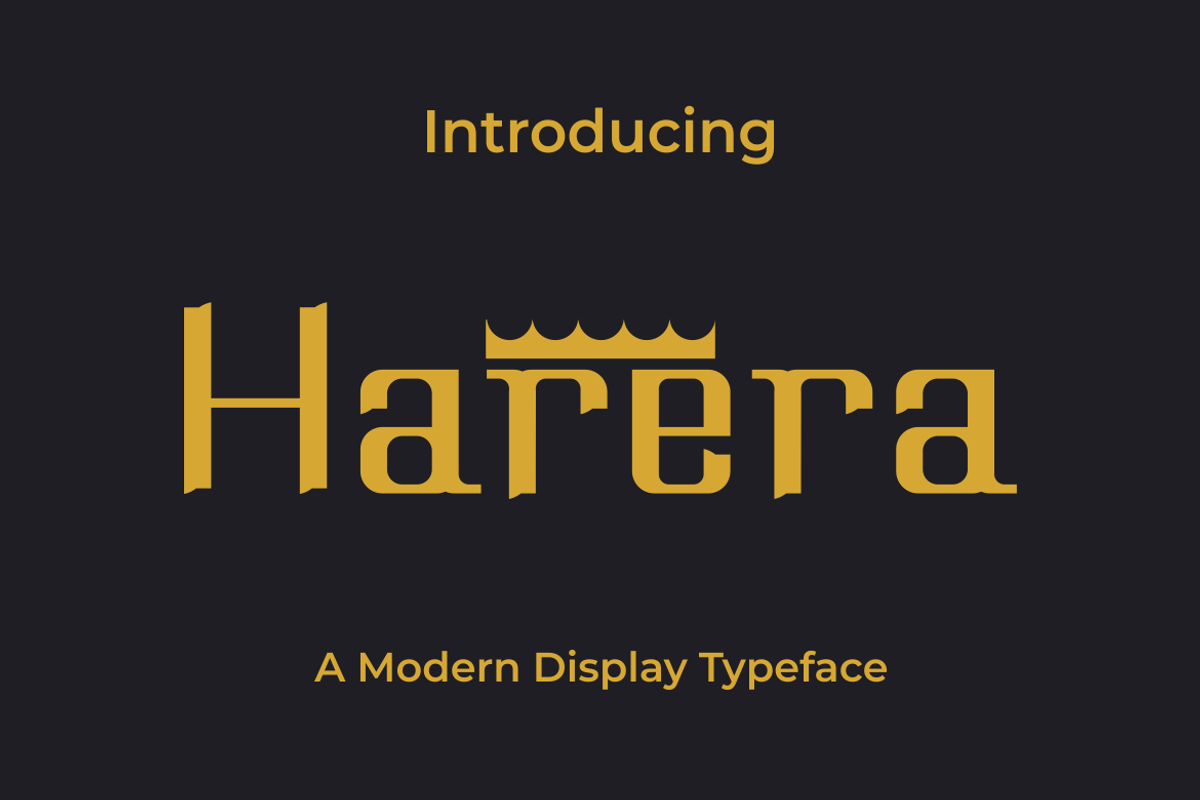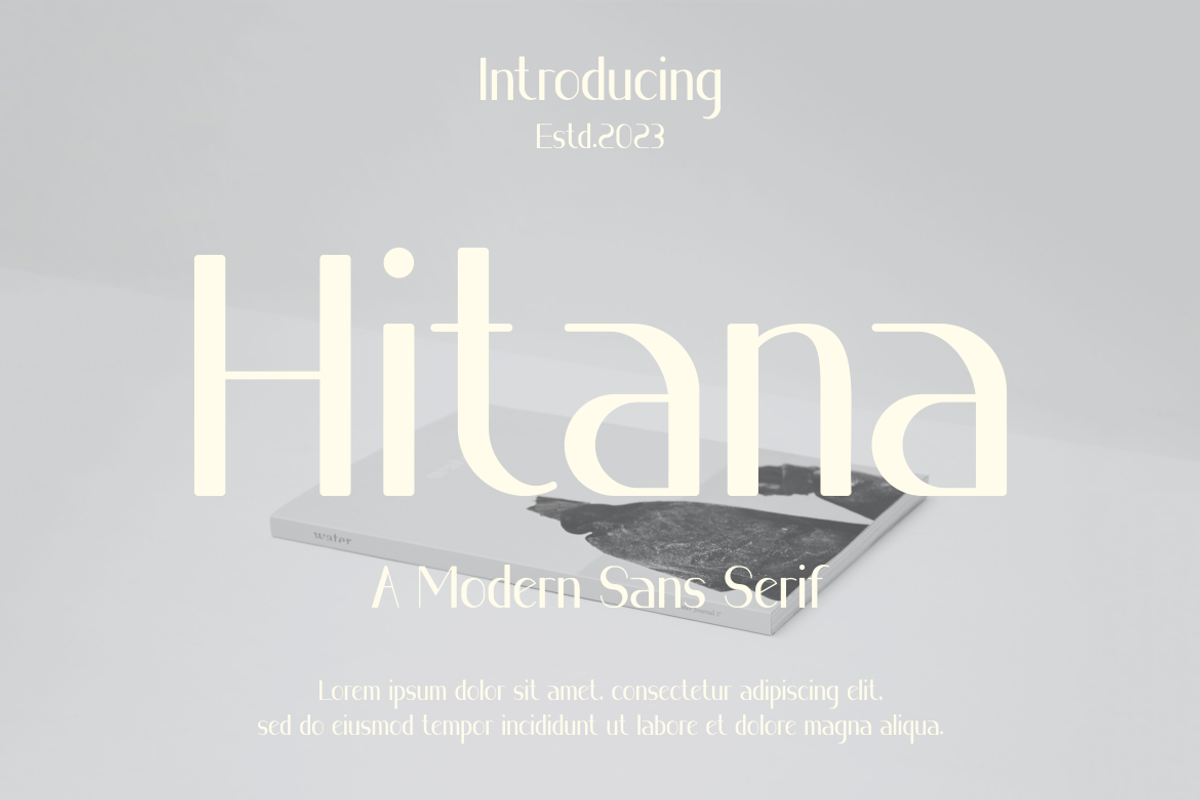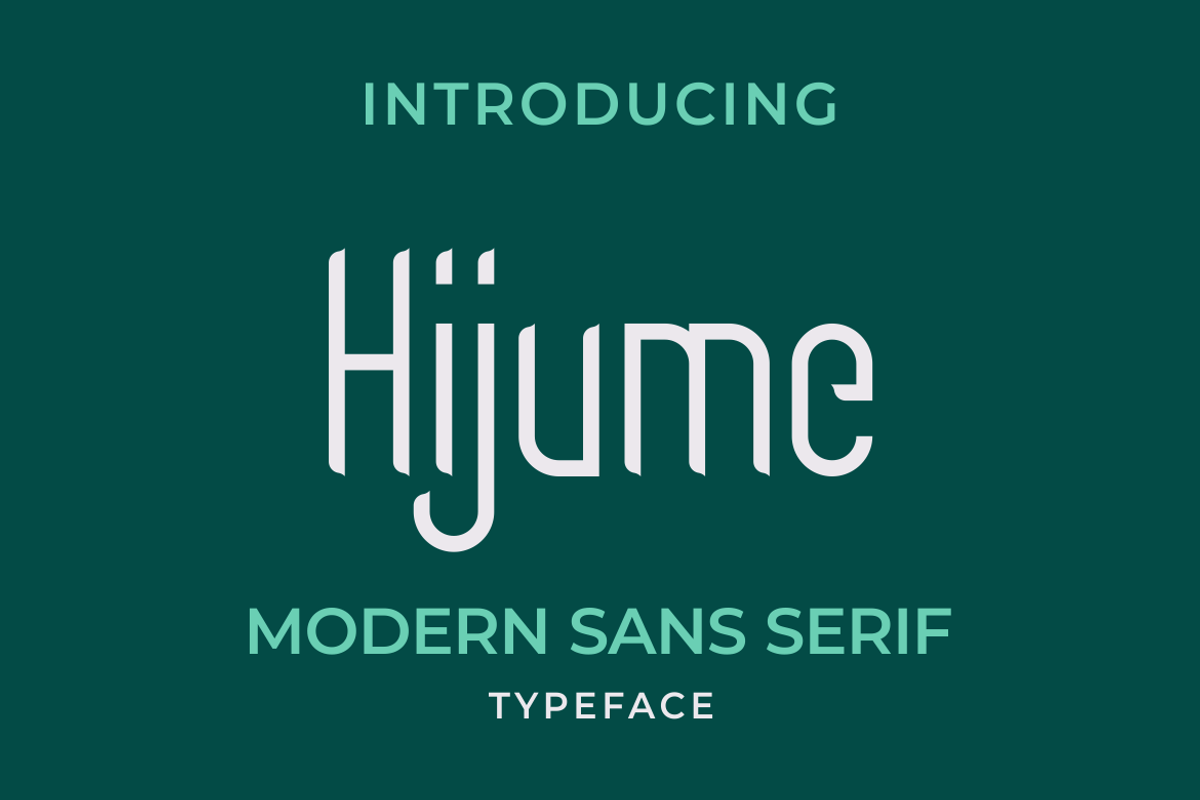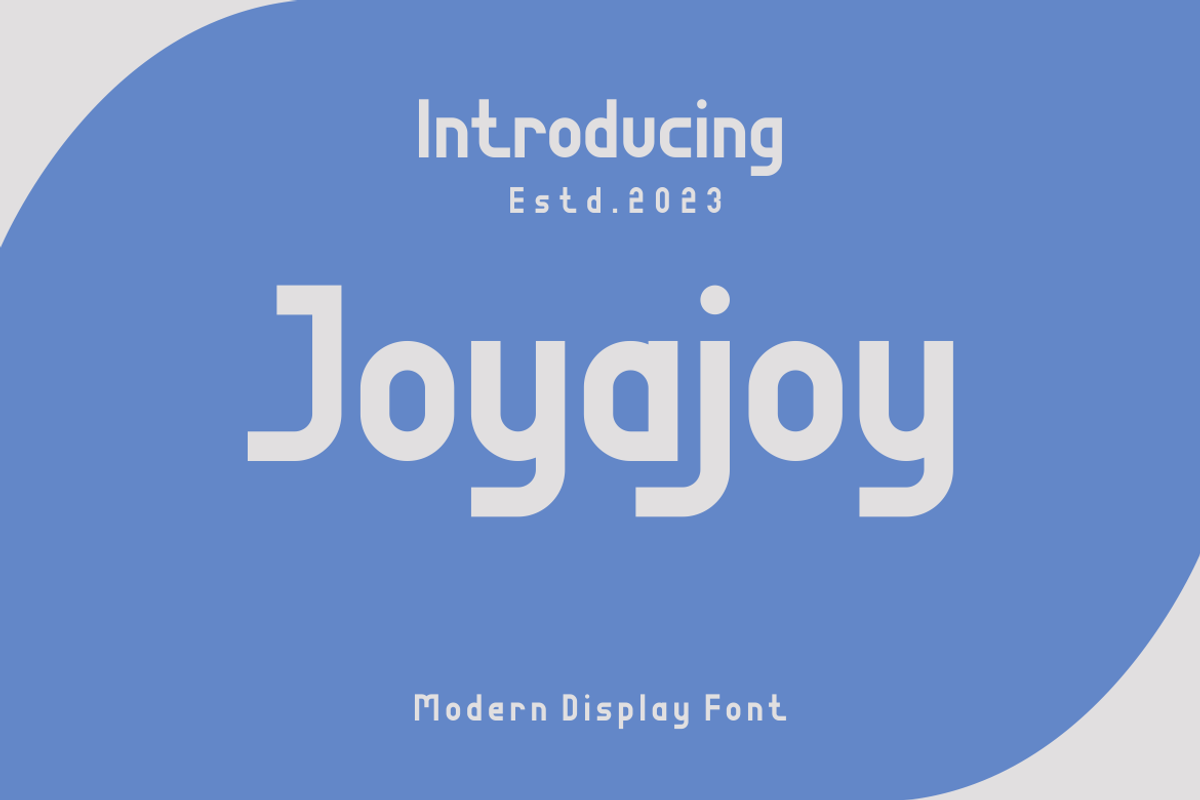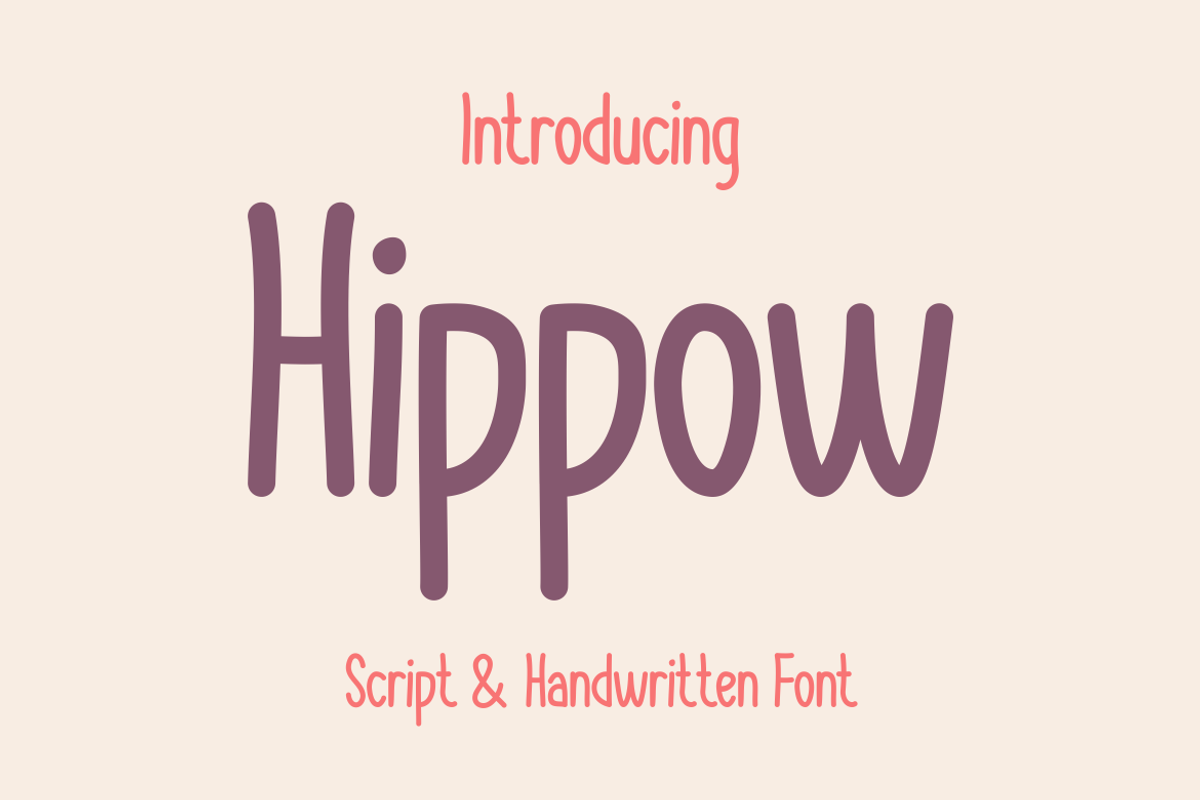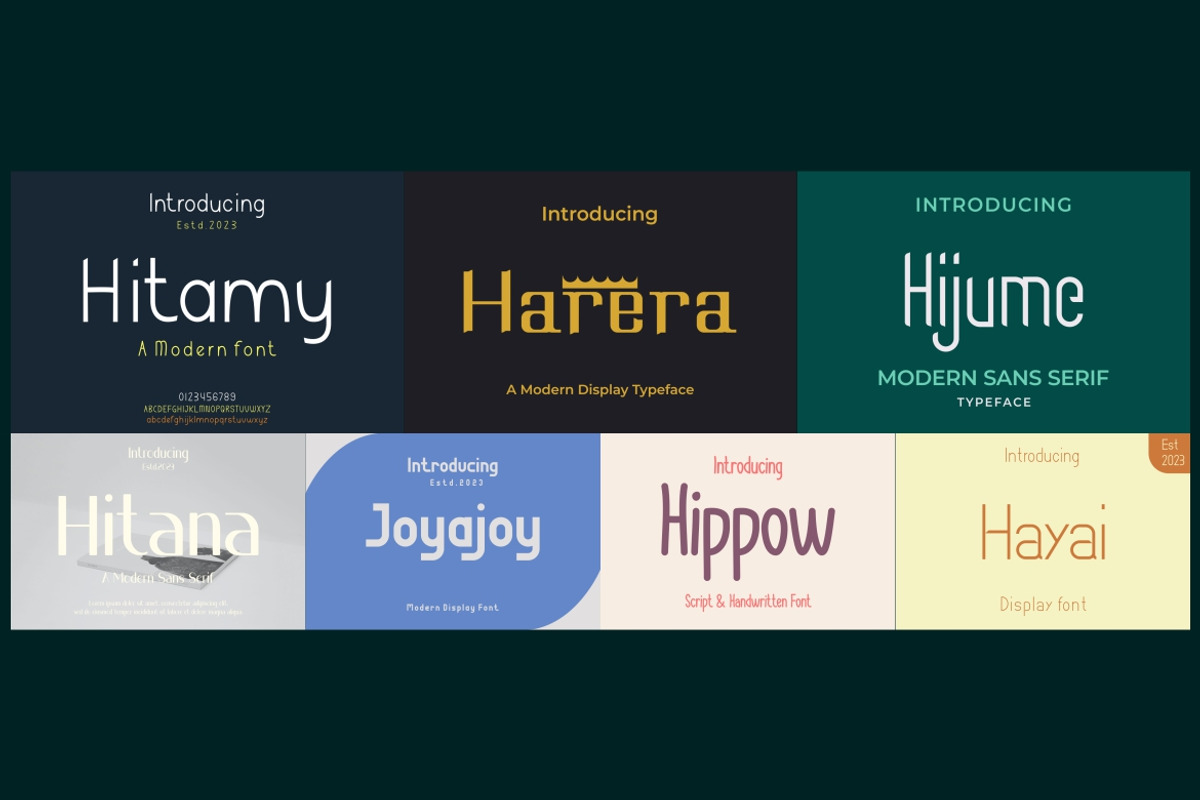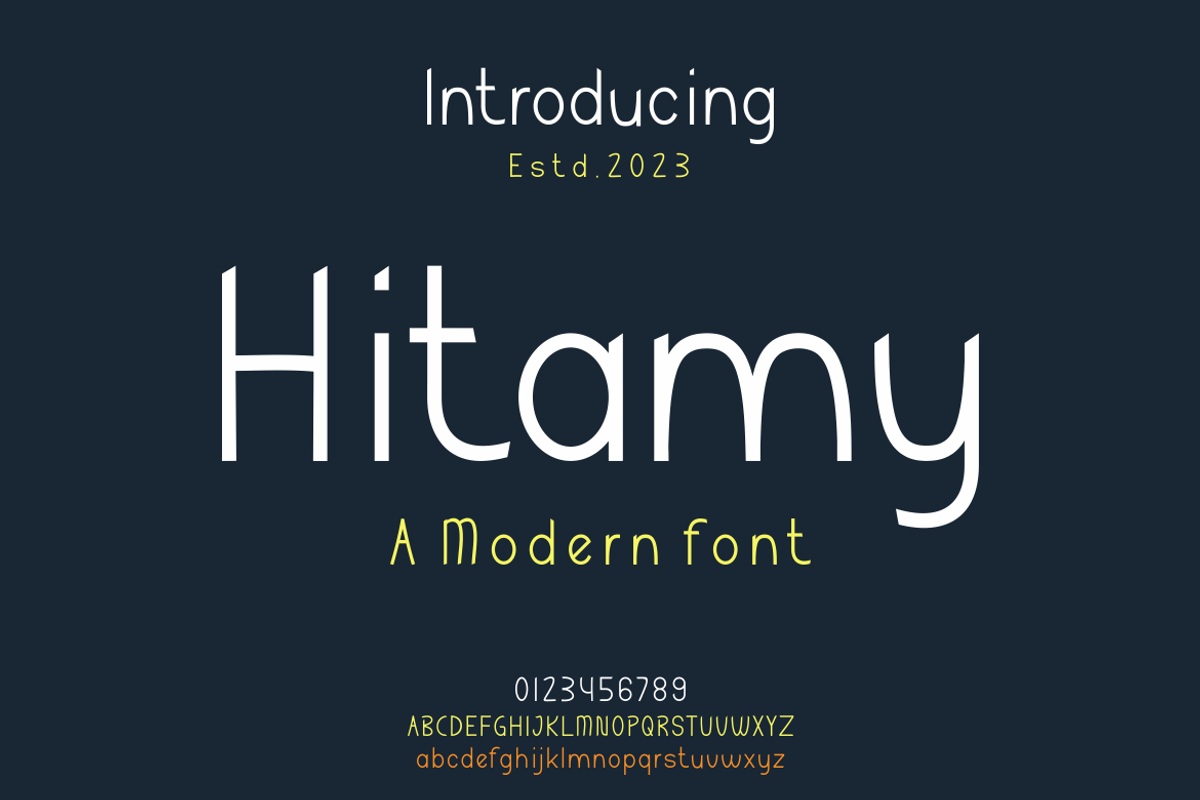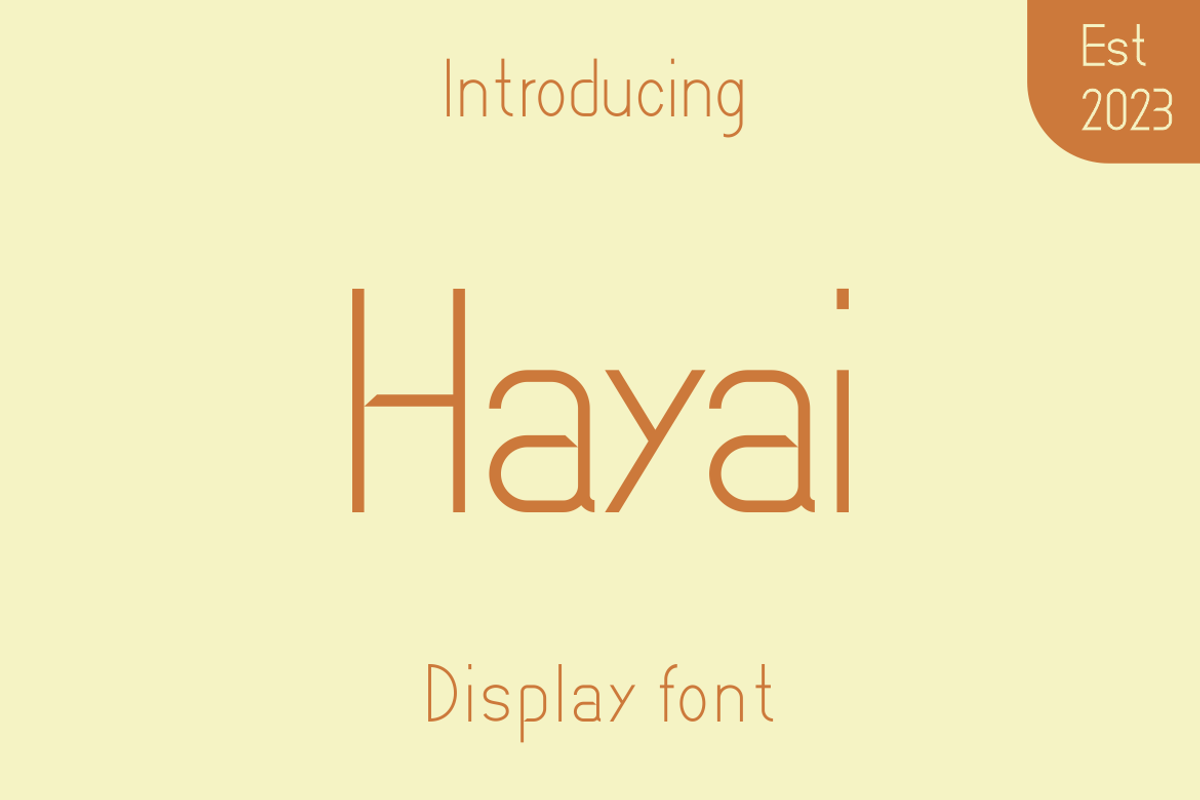
Modern Font Bundle
Modern Font Bundle - Modern Font is a bold and authentic display font. The font is suitable for any branding project like logo, template design, esport, and many more. outstanding in a wide range of contexts.